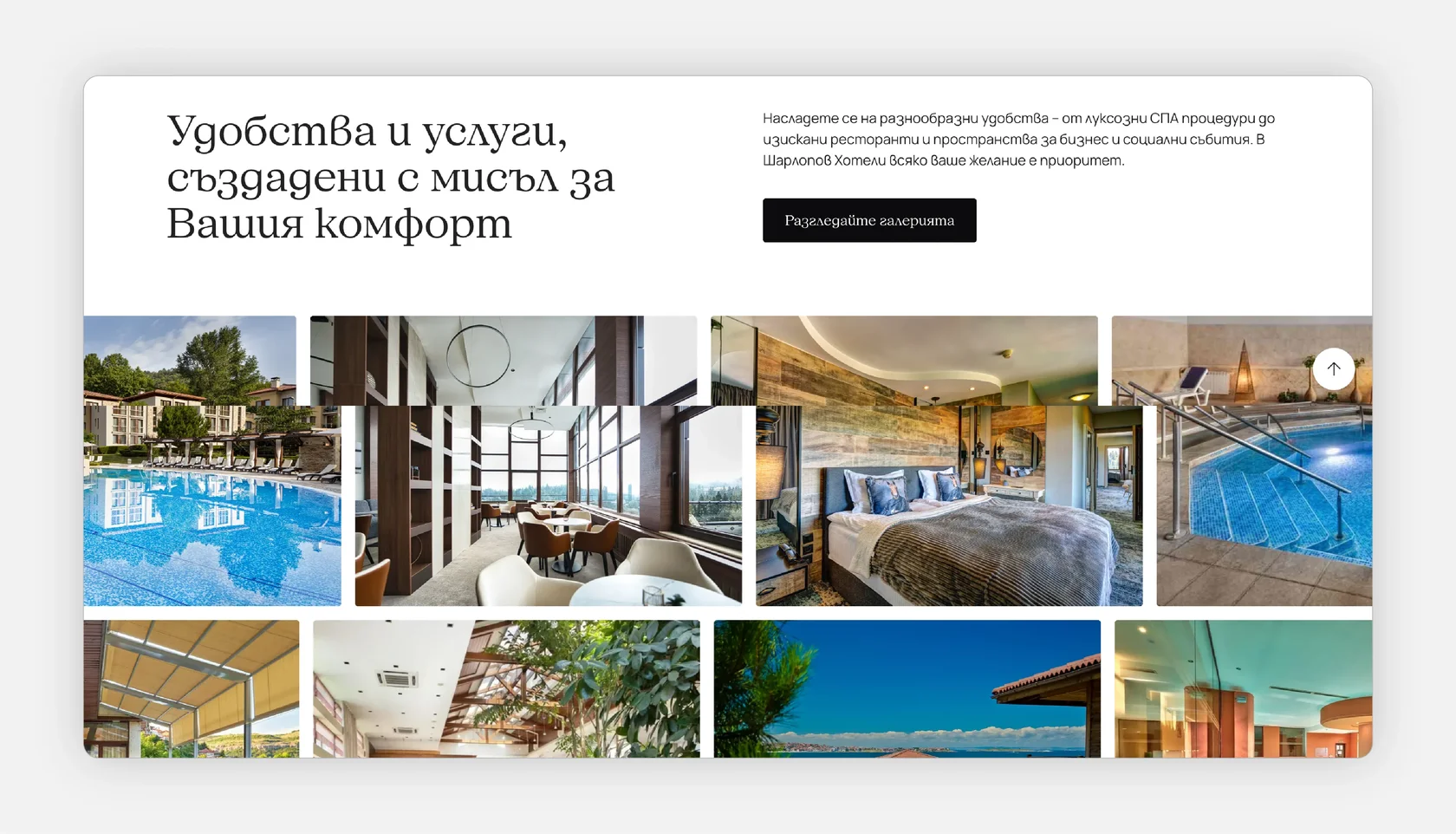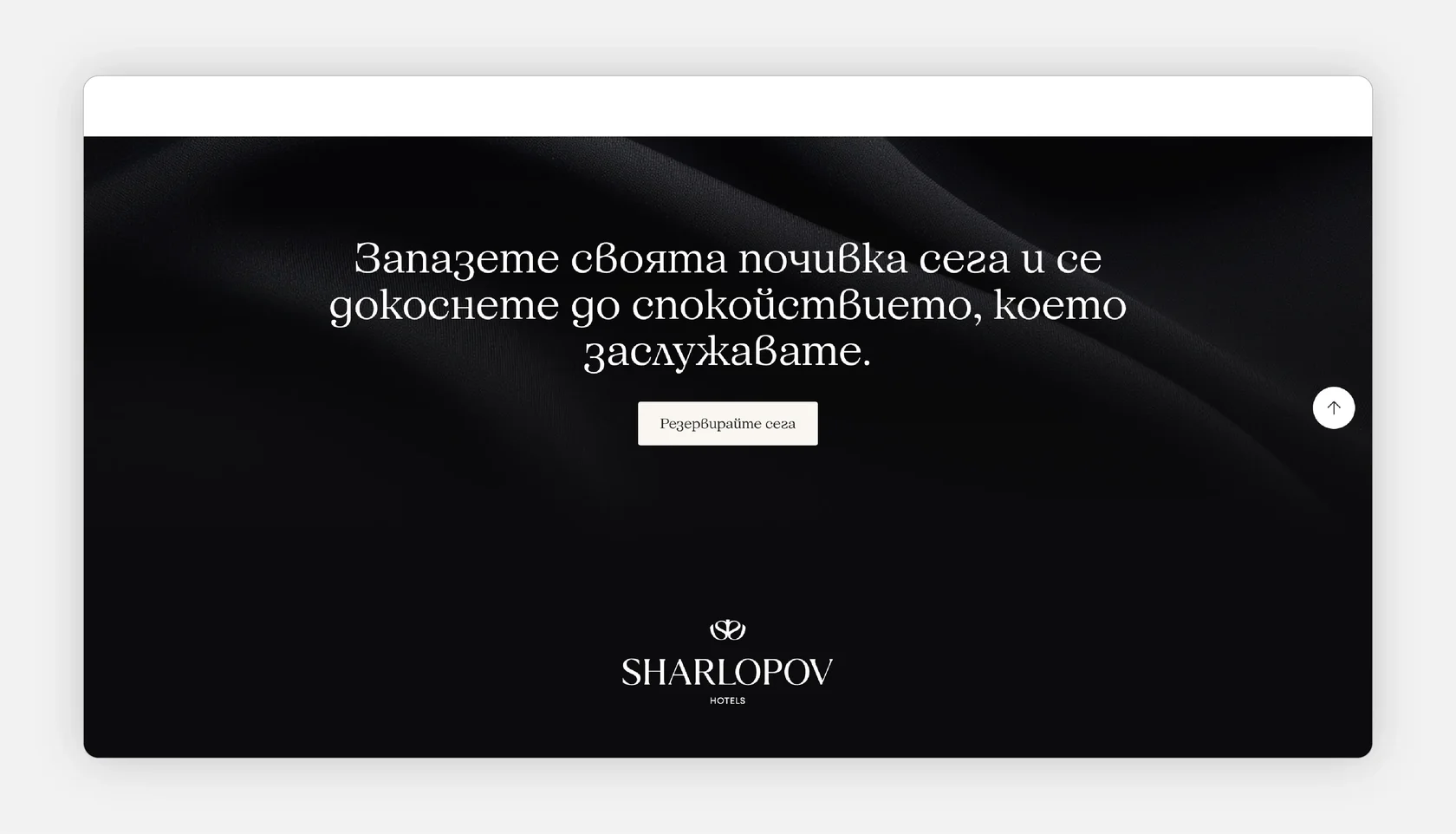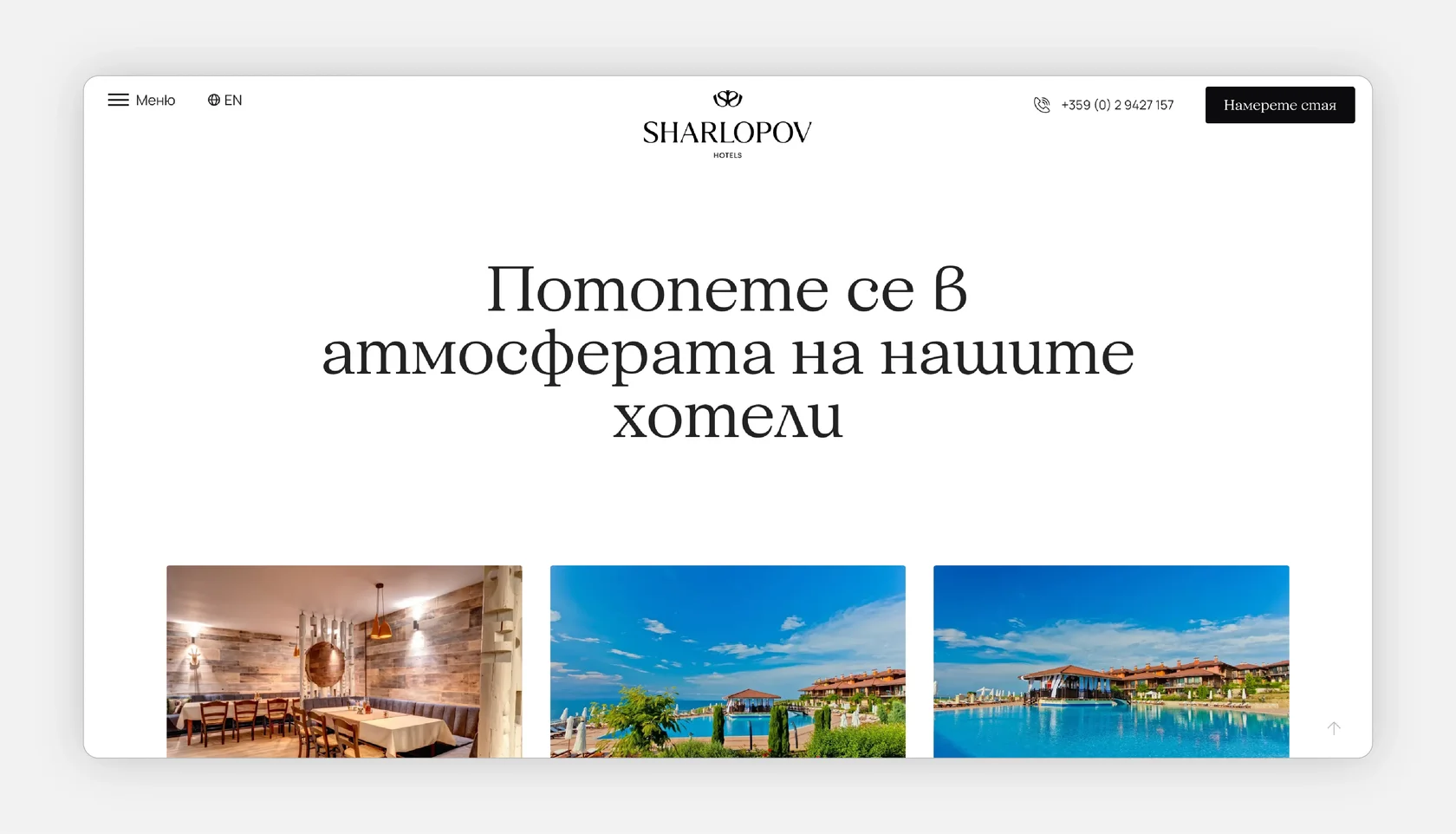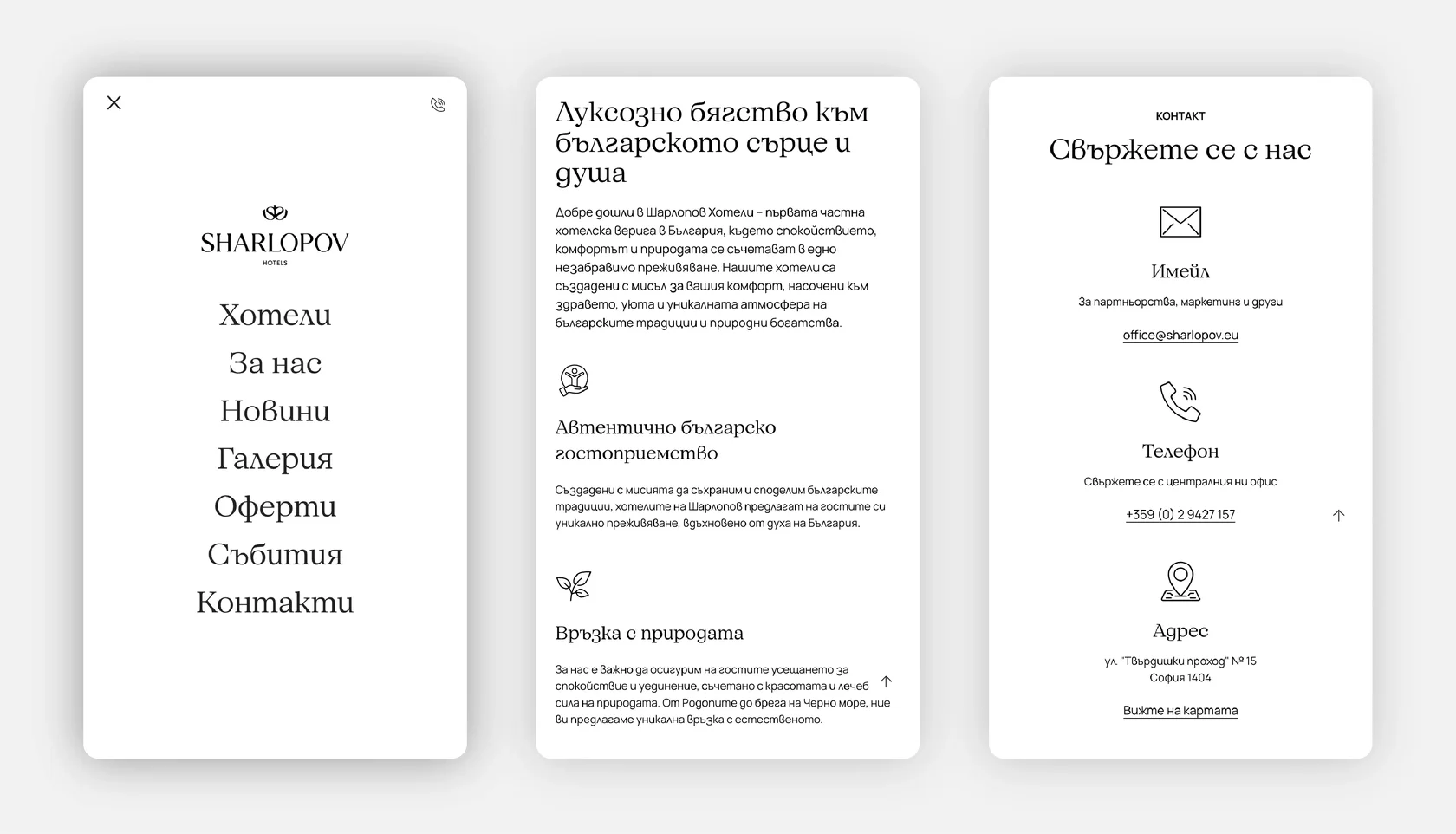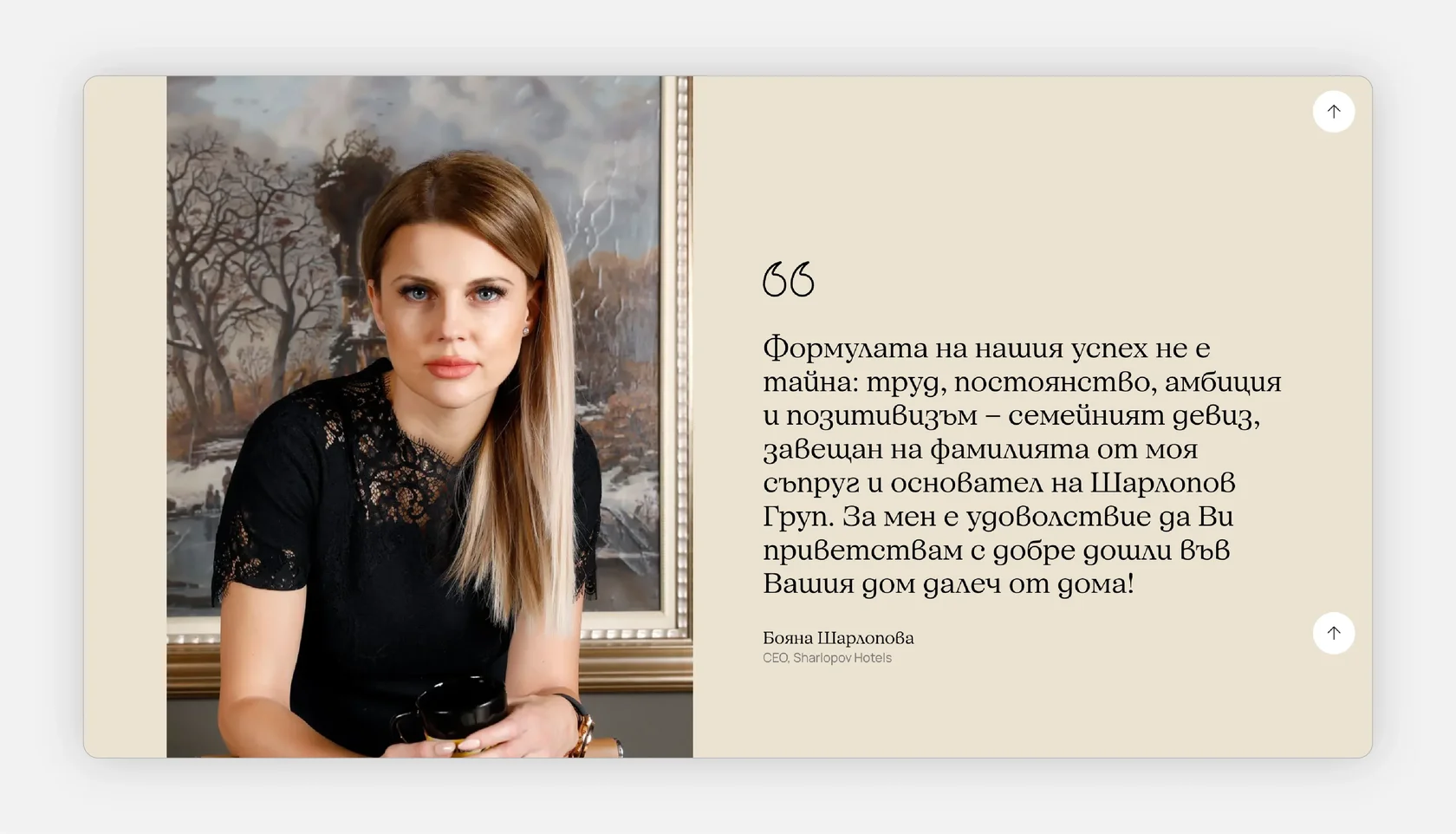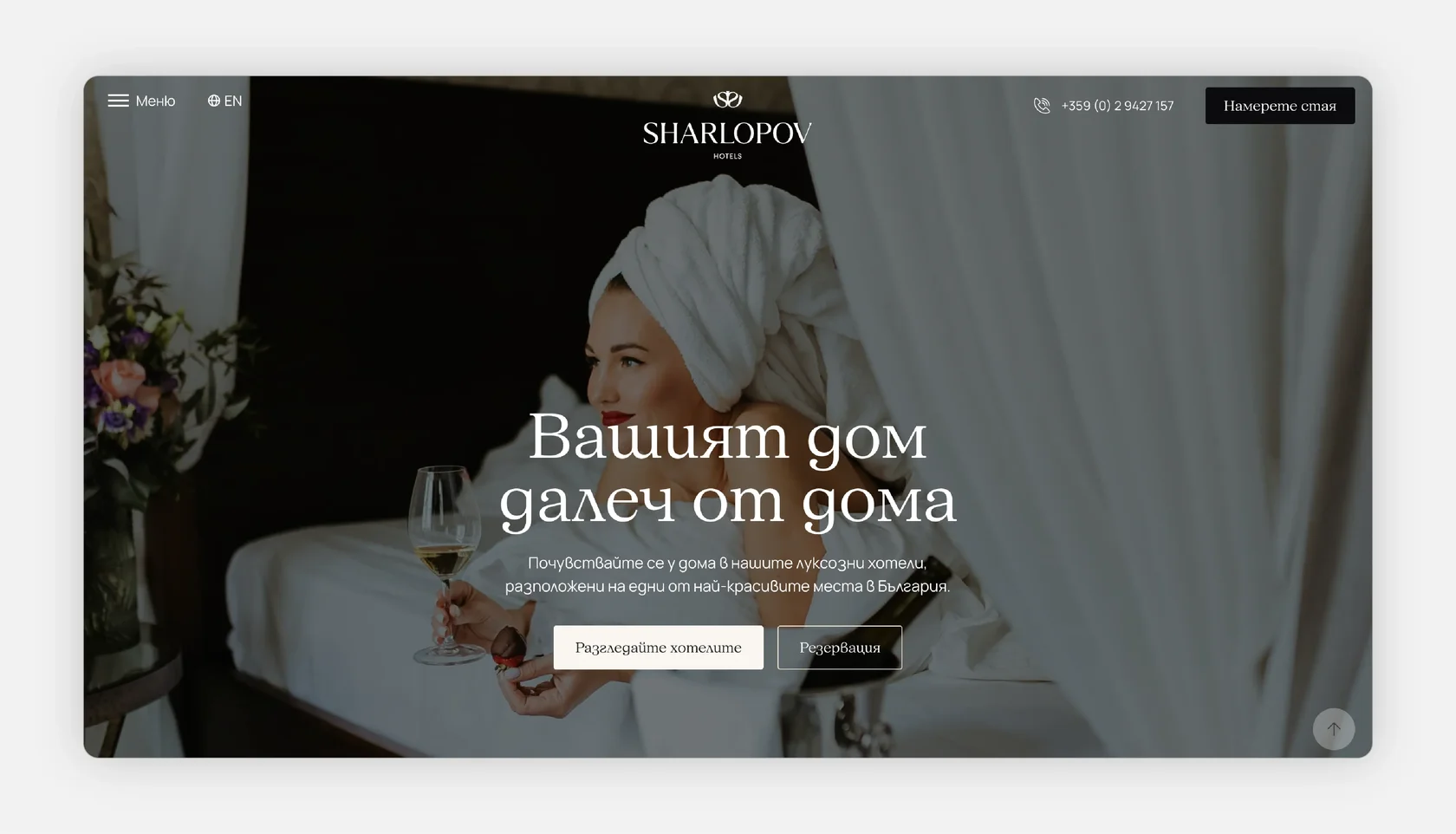
Font: Customized SFT Schrifted Serif.
About the Project:
Sharlopov is a Bulgarian hospitality group offering hotels, resorts, and wellness stays across the country. Their website highlights the brand’s focus on comfort, regional character, and curated guest experiences through detailed property overviews, testimonials, and travel features.
Why SFT Schrifted Serif?
A customized version of SFT Schrifted Serif is used throughout the site, with Bulgarian Cyrillic forms set as default to ensure cultural accuracy and smooth reading. The serif provides an elegant tone suited to premium hospitality, supporting both expressive storytelling and functional informational content.